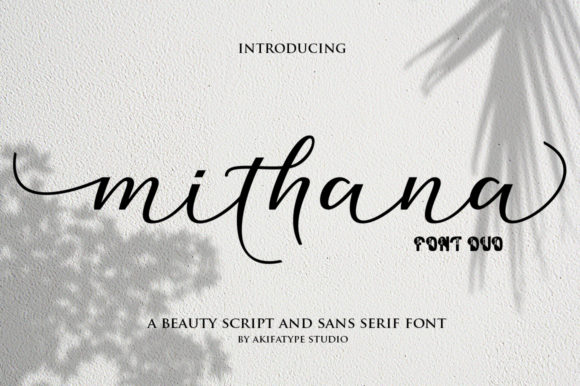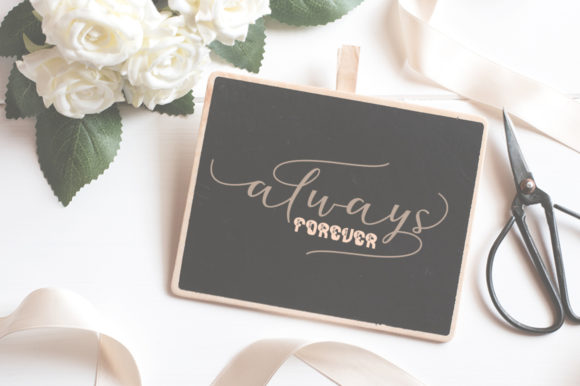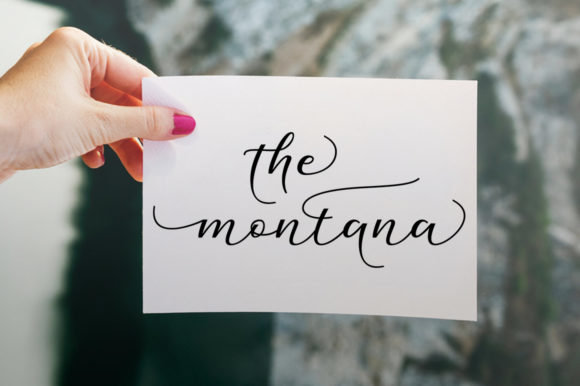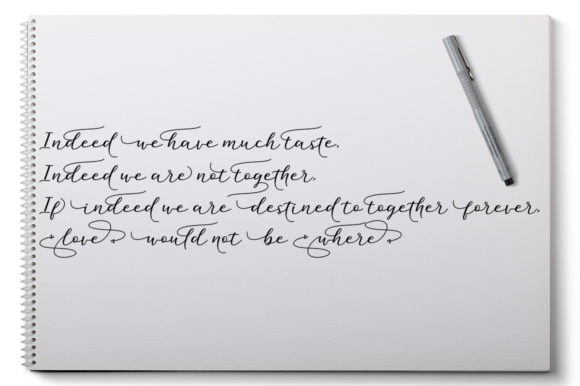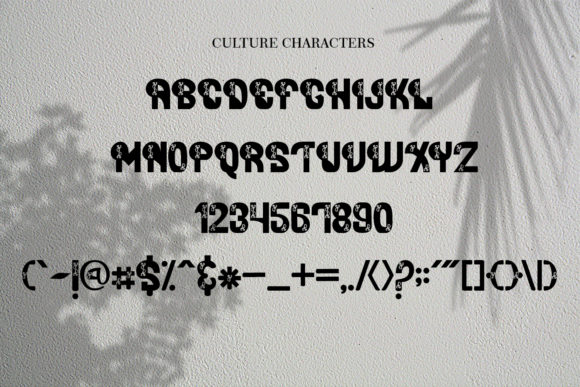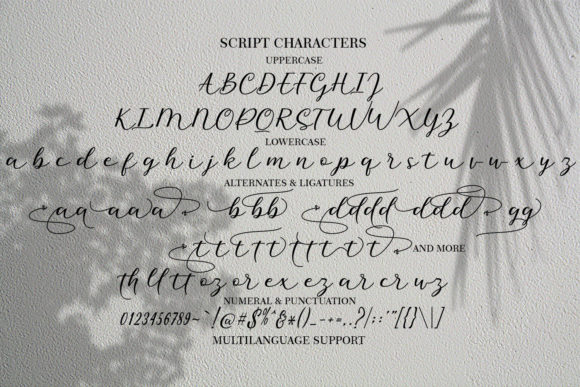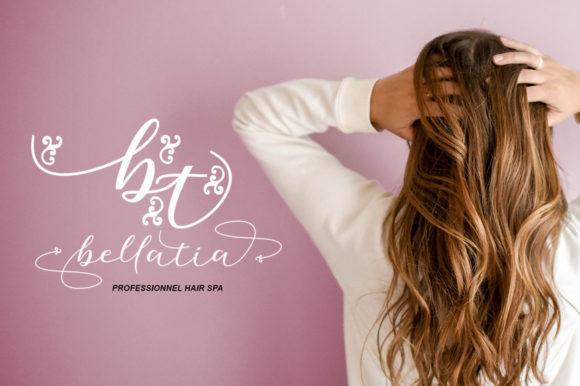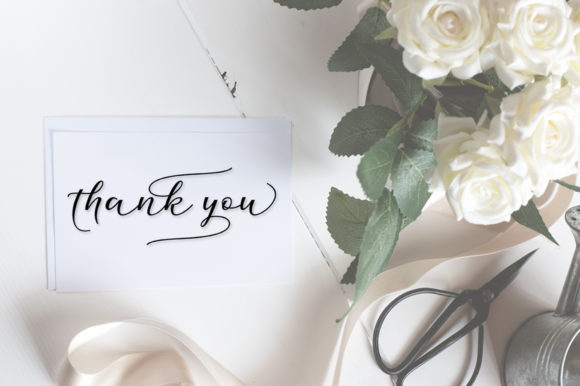
Mithana Duo Font
About Mithana Duo Font
Mithana is a unique font duo with a romantic feel. It brings together a bold sans serif font and a stunning script!